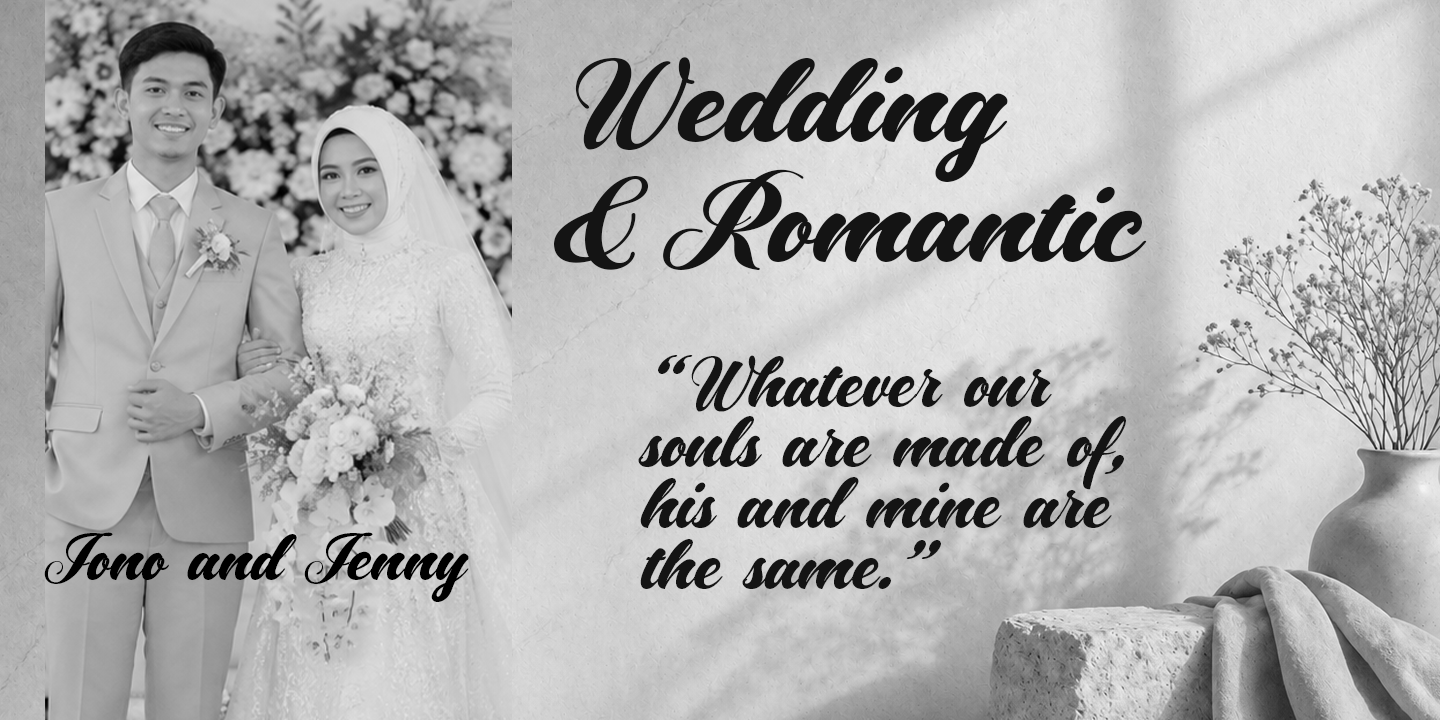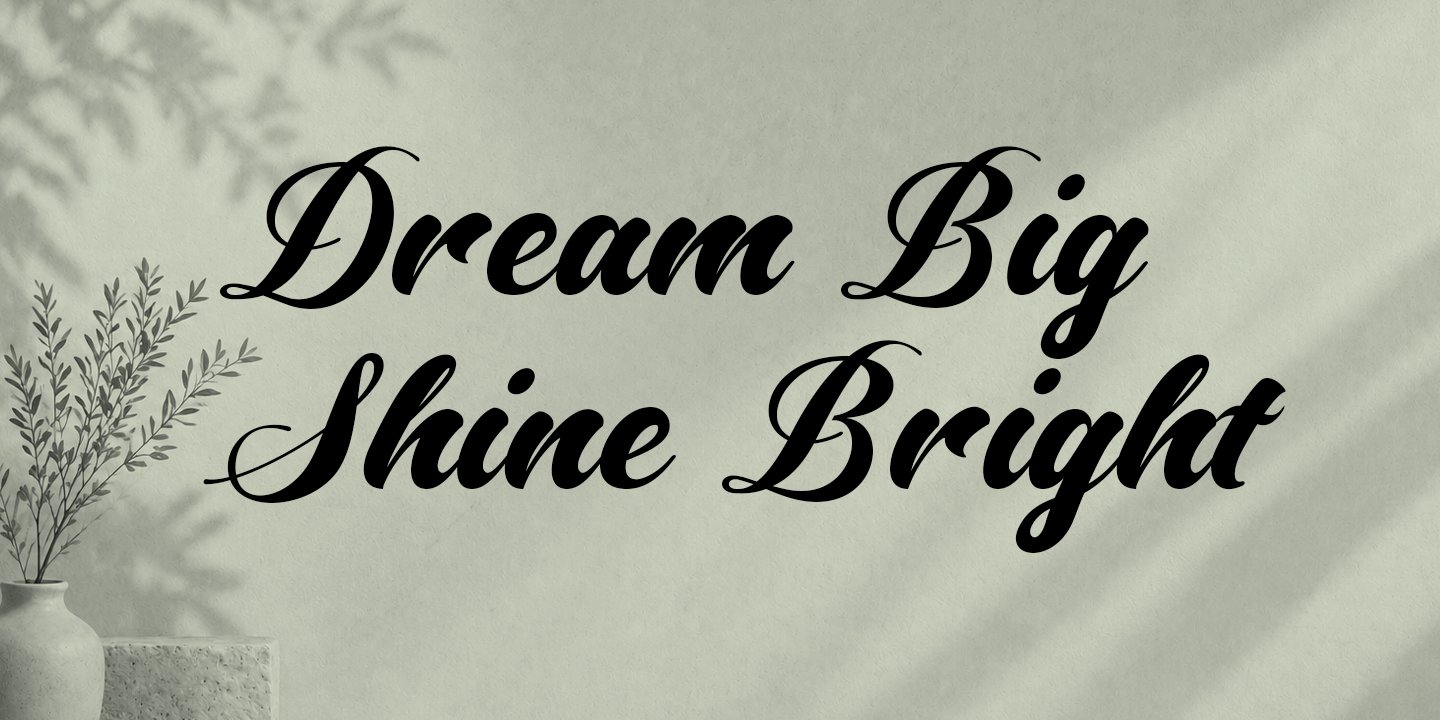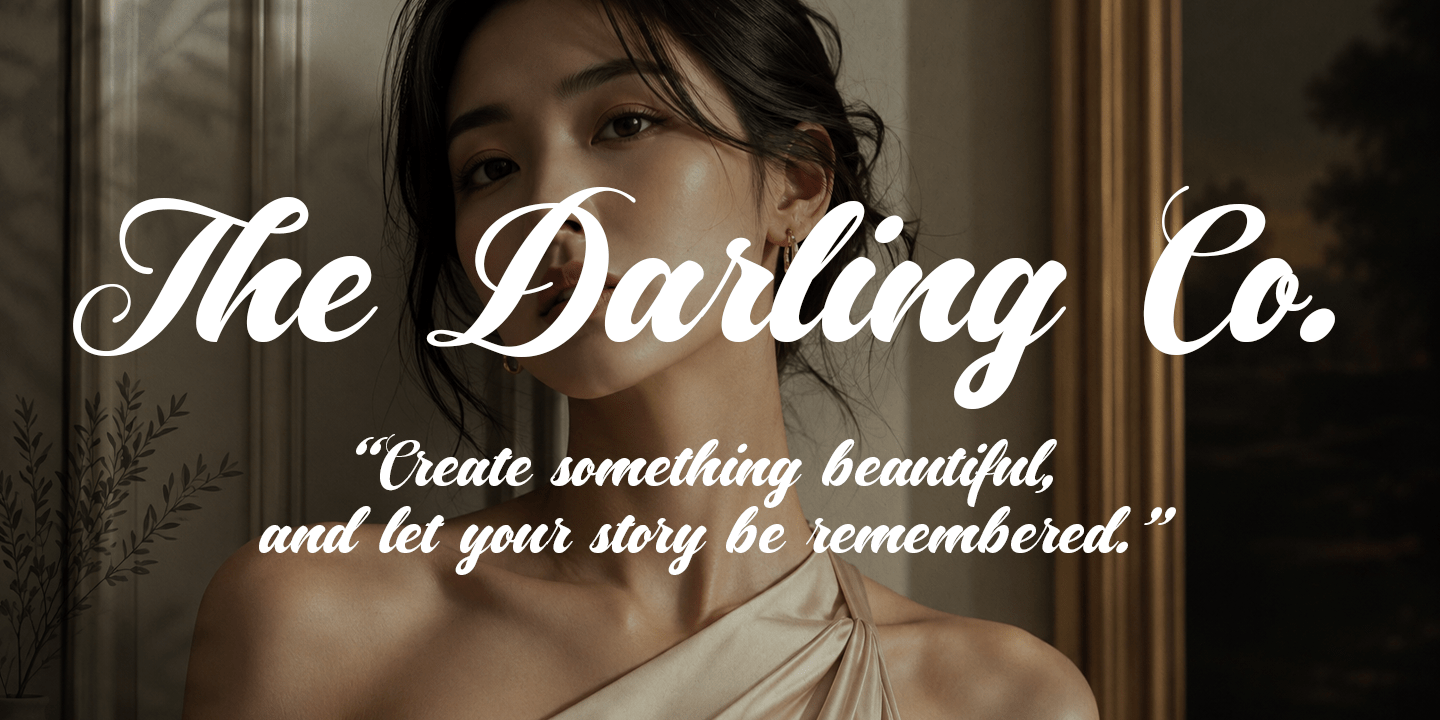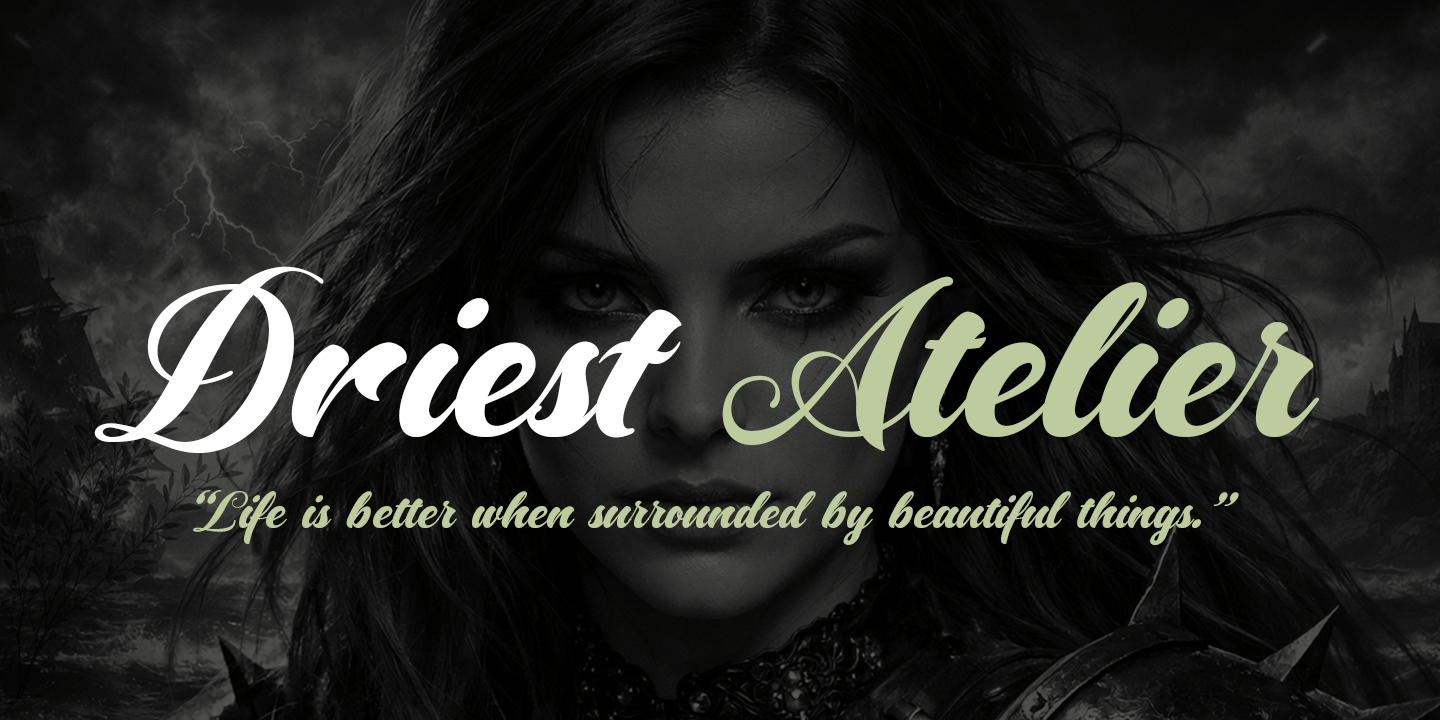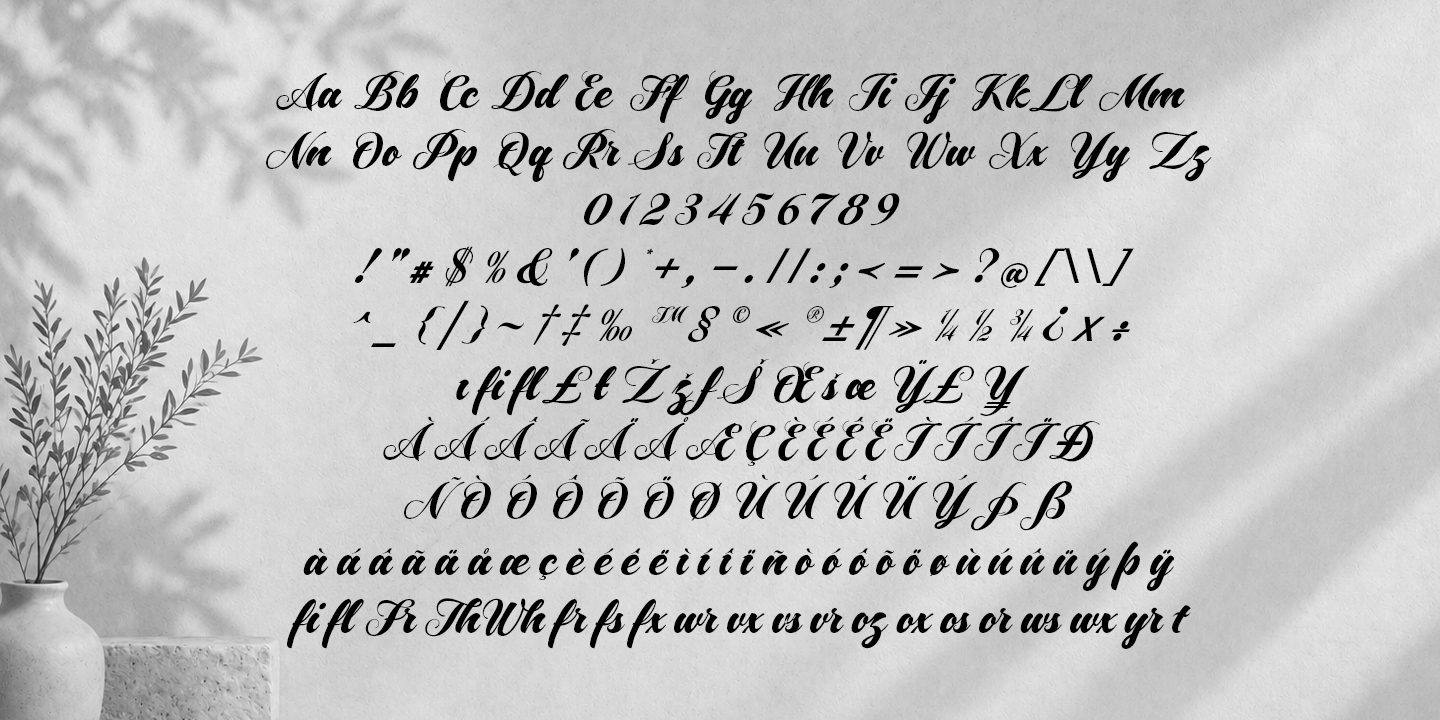
Driest Script
Driest is an elegant and expressive script font designed to bring a refined handwritten character to your creative projects. With its smooth flowing strokes, stylish letterforms, and sophisticated appearance, Driest creates a beautiful balance between modern elegance and timeless calligraphy.
Perfect for logos, branding, wedding invitations, stationery, packaging, fashion designs, posters, social media graphics, quotes, greeting cards, and editorial projects, Driest adds a personal and luxurious touch to every composition.
Its graceful curves and natural rhythm make it especially effective for headlines, signatures, short phrases, and elegant display typography. Whether you are creating a premium brand identity or a romantic invitation, Driest is designed to make your lettering stand out.
The Driest Script font family includes 251 glyphs.